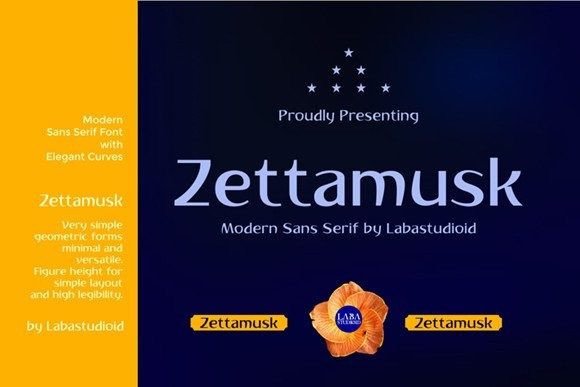
Introducing Zettamusk, the font that will revolutionize your designs with its sleek and captivating style. This modern masterpiece boasts high-contrast strokes and a sans-serif design, making it the perfect choice for creating eye-catching headlines, logos, and branding materials.
Zettamusk's bold presence commands attention, while its clean lines exude elegance. Its versatility knows no bounds, effortlessly adapting to a wide range of design projects. Whether you're seeking to craft a striking poster, a memorable website, or an unforgettable social media post, Zettamusk has got you covered.
Designed by the renowned Labastudioid, Zettamusk is not just a font; it's a statement. Its unique character adds a touch of sophistication to any project, setting your designs apart from the ordinary.
Embrace the power of Zettamusk and unleash your creativity. Its bold strokes will leave a lasting impression, captivating your audience and leaving them yearning for more. Transform your designs into masterpieces with Zettamusk, the font that empowers you to make an indelible mark.